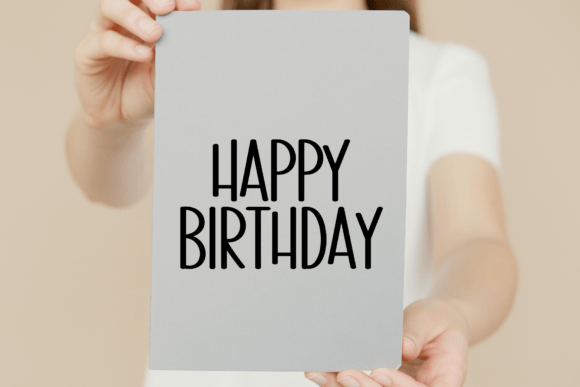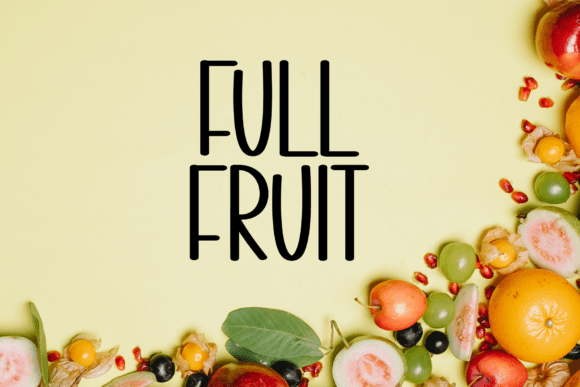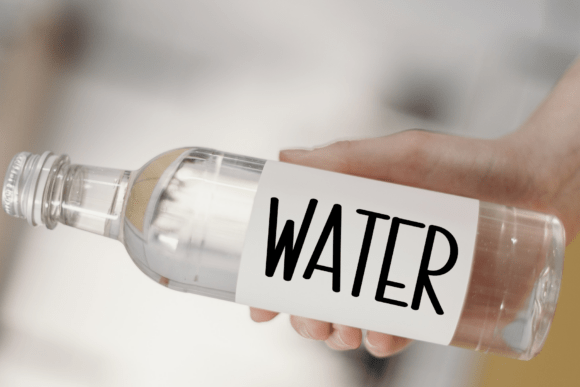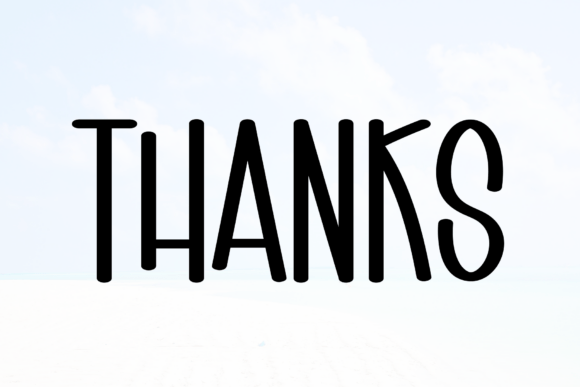
Introduction to Sky Kloudy Font
Have you ever been brainstorming a creative project, and the perfect font eludes you? It’s like trying to find a needle in a haystack, until one day, you stumble upon the perfect design resource – Sky Kloudy Font. This stunning handwritten font is the epitome of elegance and casual charm, making it an ideal choice for branding, logos, and marketing promotions.
With its relaxed and sporty feel, Sky Kloudy Font adds a touch of sophistication to any design project. Its high quality and versatility make it a valuable asset for designers, allowing them to create unique and eye-catching visuals. Whether you’re working on a wedding invitation or a fashion lookbook, this font is sure to elevate your design to the next level. Plus, with a transparent background, you can easily integrate it into your project, and the best part? It’s available for free download, making it an accessible and convenient choice for designers.
- Includes a unique, stylized design with a mix of modern and whimsical elements, perfect for adding a touch of personality to your creative project.
Honest Review: Sky Kloudy Font
I recently stumbled upon the Sky Kloudy Font and was immediately drawn to its unique, modern aesthetic. As a designer, I appreciate a good design resource, and this font definitely fits the bill.
- ✨ High-quality glyphs that render smoothly in various sizes and resolutions.
- ✨ A transparent background that makes it easy to use in both digital and print-based creative projects.
- ✨ A clean, minimalist design that works well for both body text and headlines.
- ⚠️ The font is only available in a few weights, which may limit its versatility in certain creative projects.
Overall, I’m impressed with the Sky Kloudy Font, and I think it’s a great choice for designers looking for a high-quality, free download. While it’s not perfect, its strengths far outweigh its limitations, making it a valuable addition to any design toolkit.
The Sky Kloudy Font is suitable for a variety of creative projects, including logos, social media graphics, marketing materials, presentations, and documents. Its high-quality design and transparent background make it an ideal choice for designers and non-designers alike.